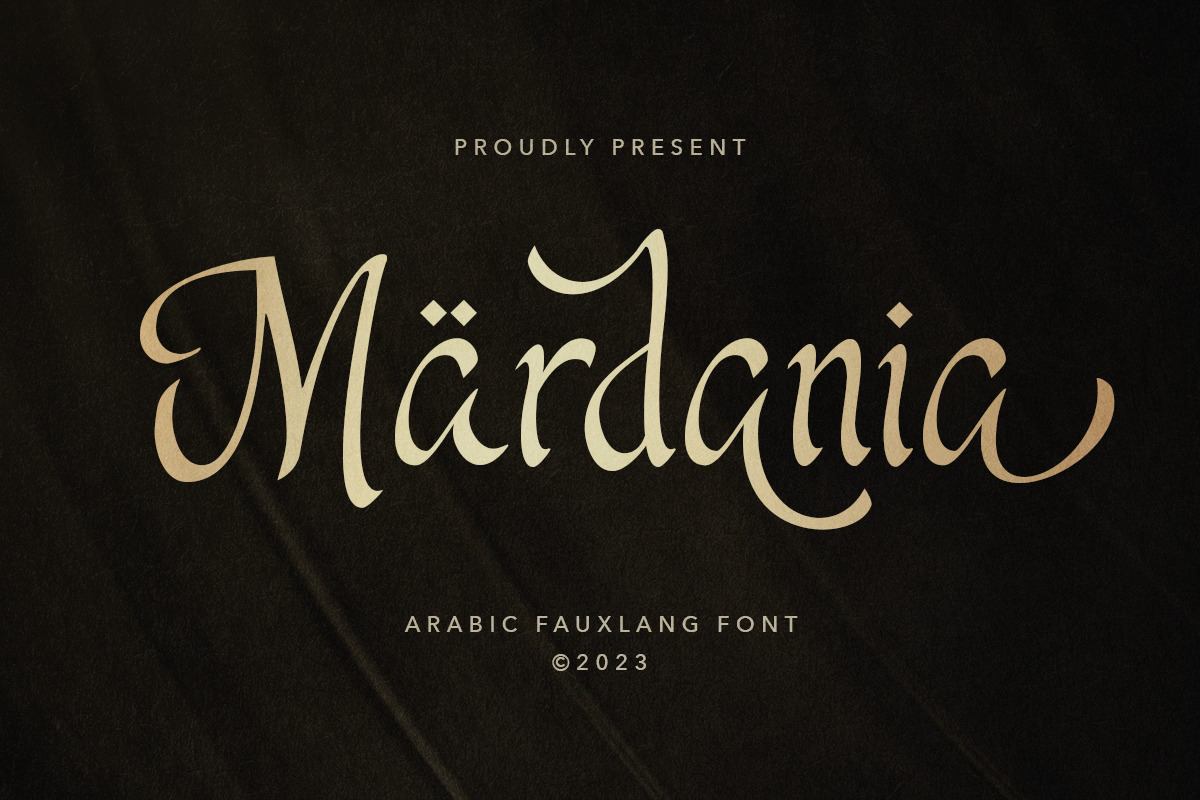
Mardania - Arabic Display Font Free Download
Mardania - Arabic Display Font Free Download is a stunning and expressive typeface that blends traditional Arabic calligraphy with modern design aesthetics. Ideal for branding, poster art, editorial headlines, packaging, and cultural event promotions, Mardania offers an elegant fusion of authenticity and contemporary flair.
Its intricate letterforms and bold structure make it perfect for display purposes where a strong visual identity is key. Whether you're designing for a fashion label, a cultural project, or a creative campaign, Mardania stands out with grace and authority.